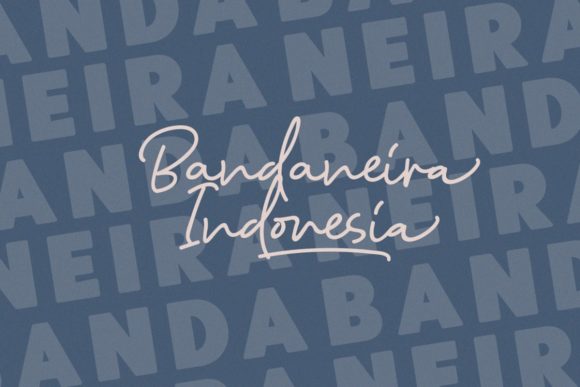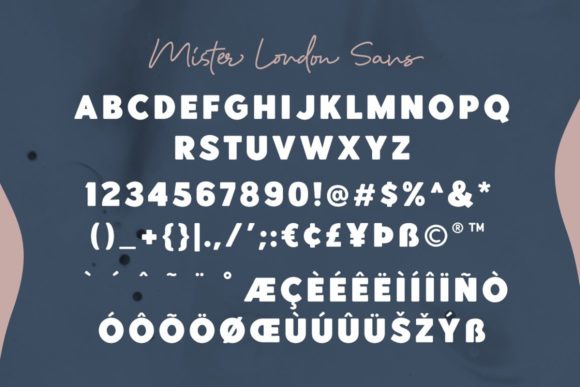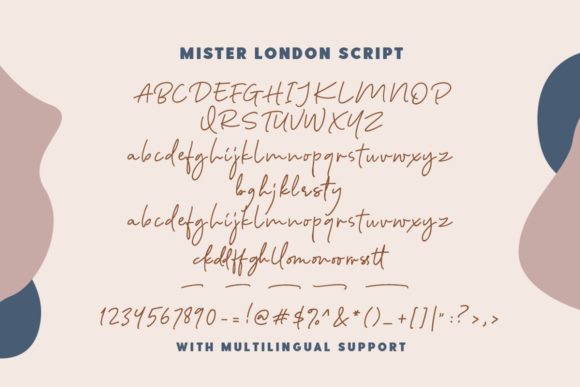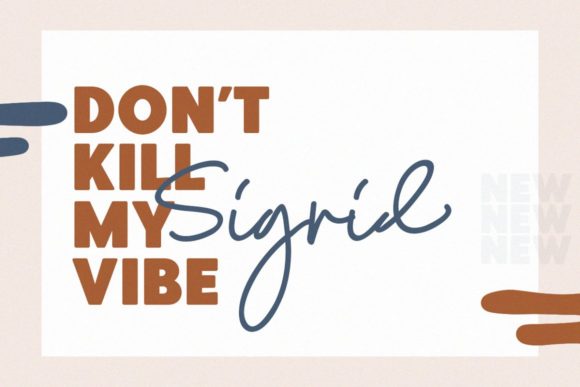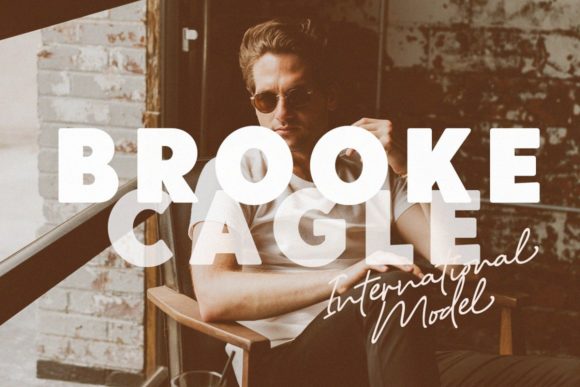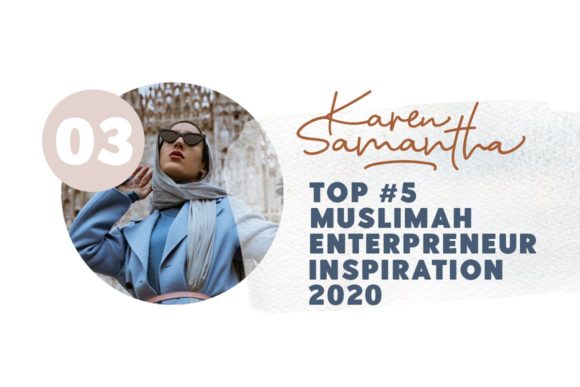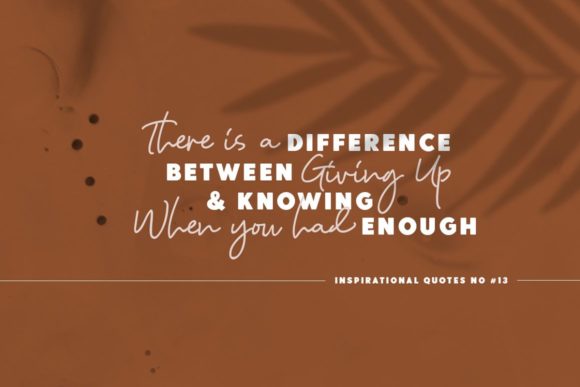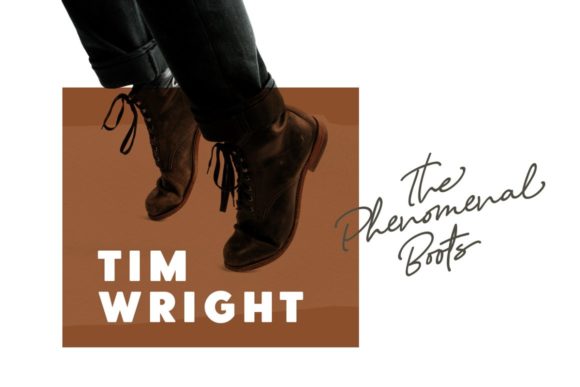
Mister London Font
About Mister London Font
Mister London is a fantastic duo font. It perfectly combines a relaxed script with a cute sans serif. Use them together to get a versatile look! Whether you’re looking for fonts for Instagram or calligraphy scripts for DIY projects, Mister London will turn any creative idea into a true piece of art!